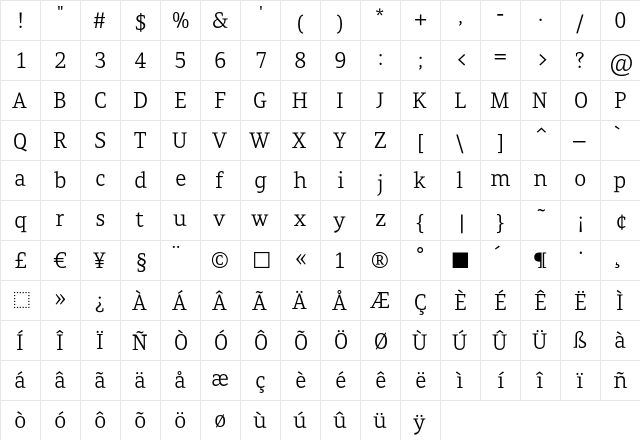
GakSerif Light
Design Context for GakSerif Typeface
GakSerif brings classic typographic sensibility to the table — its serifs and measured letterforms reflect centuries of print heritage. The delicate stroke weight brings airiness and refinement to layouts.
Pro Tip: Use GakSerif with generous line-spacing for the most refined reading experience — its light weight benefits from room between lines.